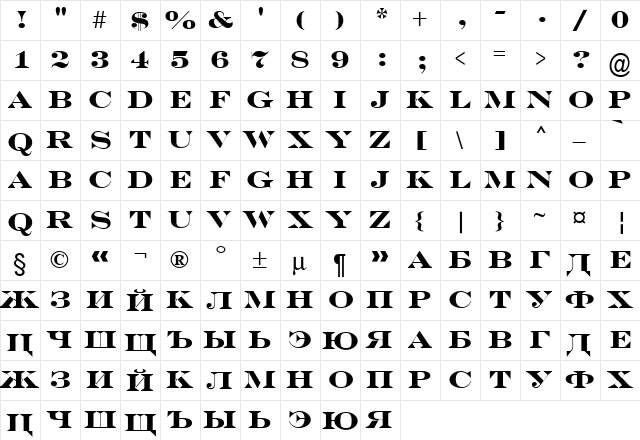
a_SeriferExpTitul Bold
Design Context for a_SeriferExpTitul Typeface
a_SeriferExpTitul carries the refined structure of traditional serif typography, with bracketed terminals and considered proportions that communicate credibility and craft. Its bold stroke weight gives it real presence on the page.
Pro Tip: Use a_SeriferExpTitul for editorial body copy and considered headline work. Pair with a neutral sans for UI elements or captions to create a classic hierarchy.